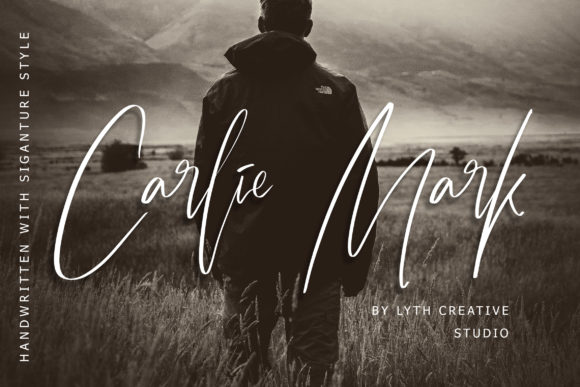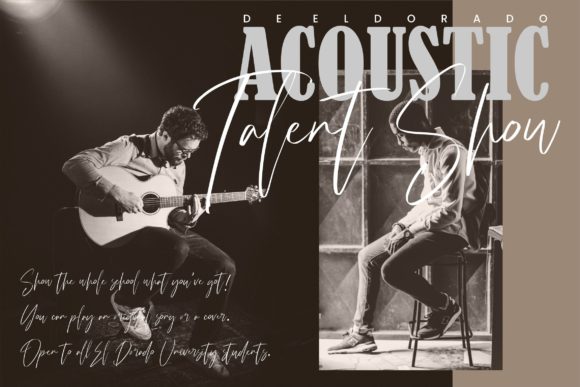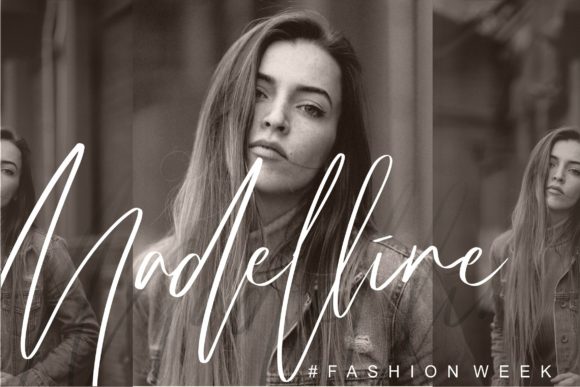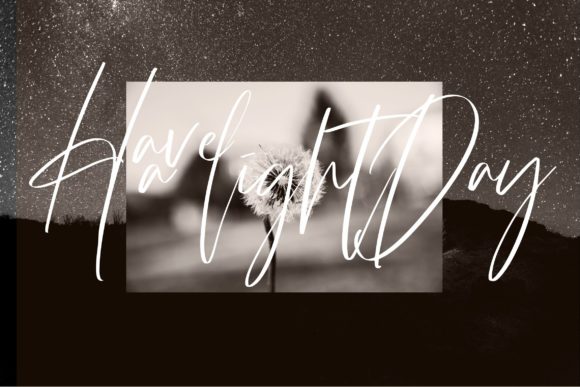
About Carlie Mark Font
Carlie Mark is a tall and thin handwritten font. Whether you’re looking for fonts for Instagram or calligraphy scripts for DIY projects, Carlie Mark will turn any creative idea into a true piece of art!